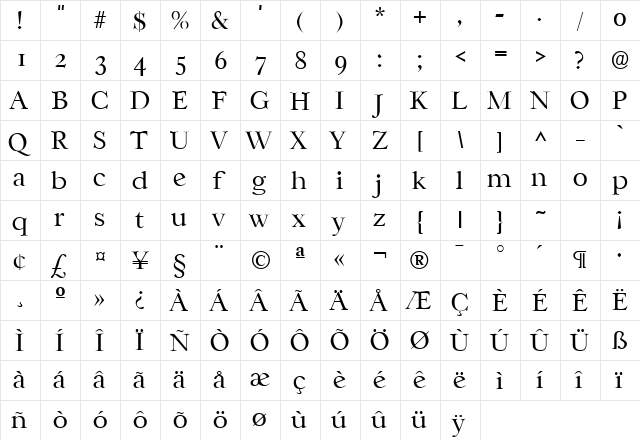
Casablanca Light SF Regular
Design Context for Casablanca Light SF Typeface
Casablanca Light SF takes a measured approach to typography — its balanced proportions and neutral character make it a reliable workhorse for both digital and print work. The delicate stroke weight brings airiness and refinement to layouts.